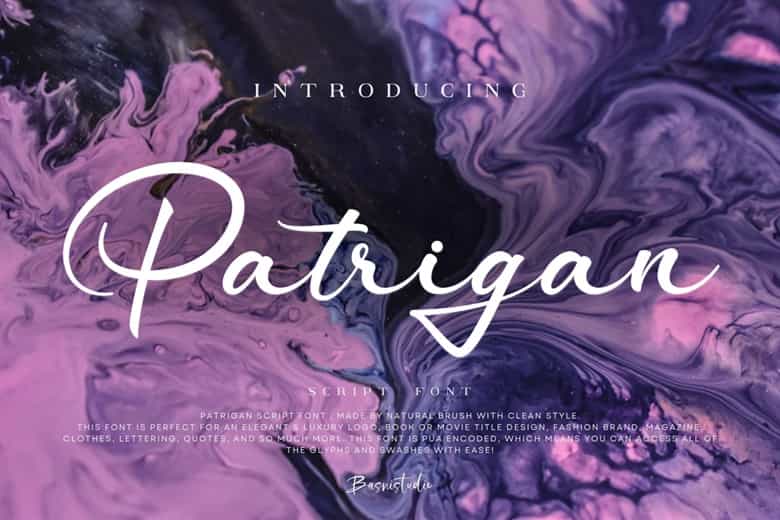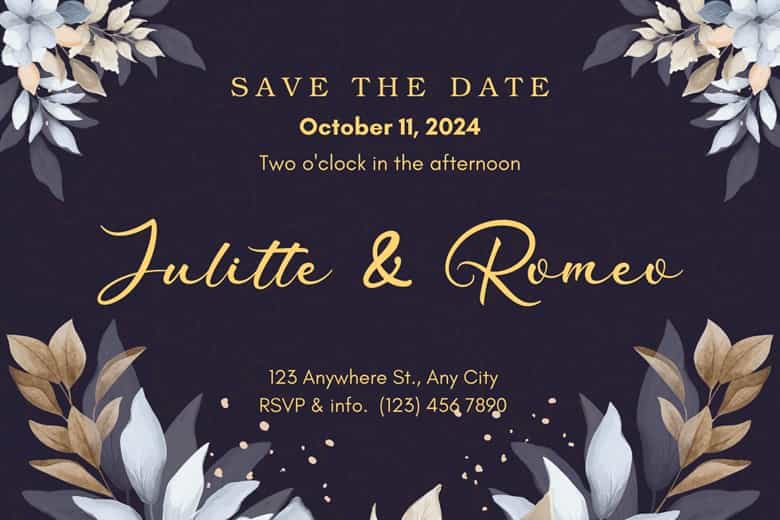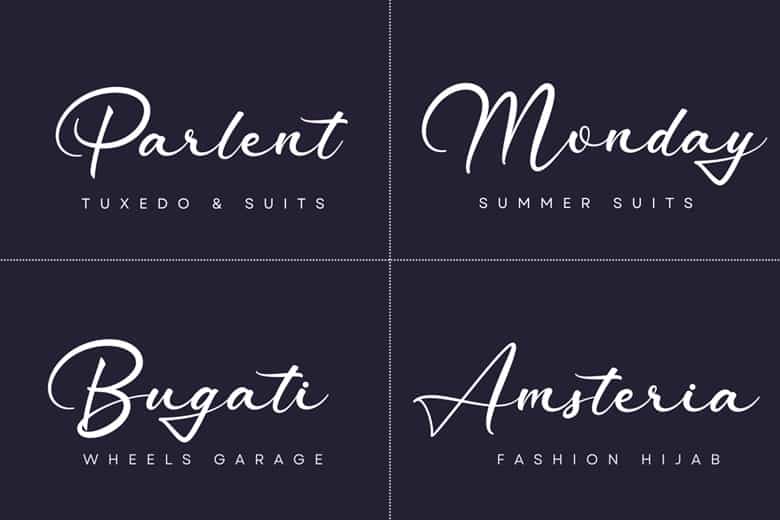
Patrigan is a modern calligraphy script font, made by naturally brush & clean style. This font will work best in an elegant luxury logo, book or movie title, fashion brand, magazine, clothing, lettering, quotes and much more. This font is PUA encoded – that means you will be able to access all the glyphs and swashes with no problem!